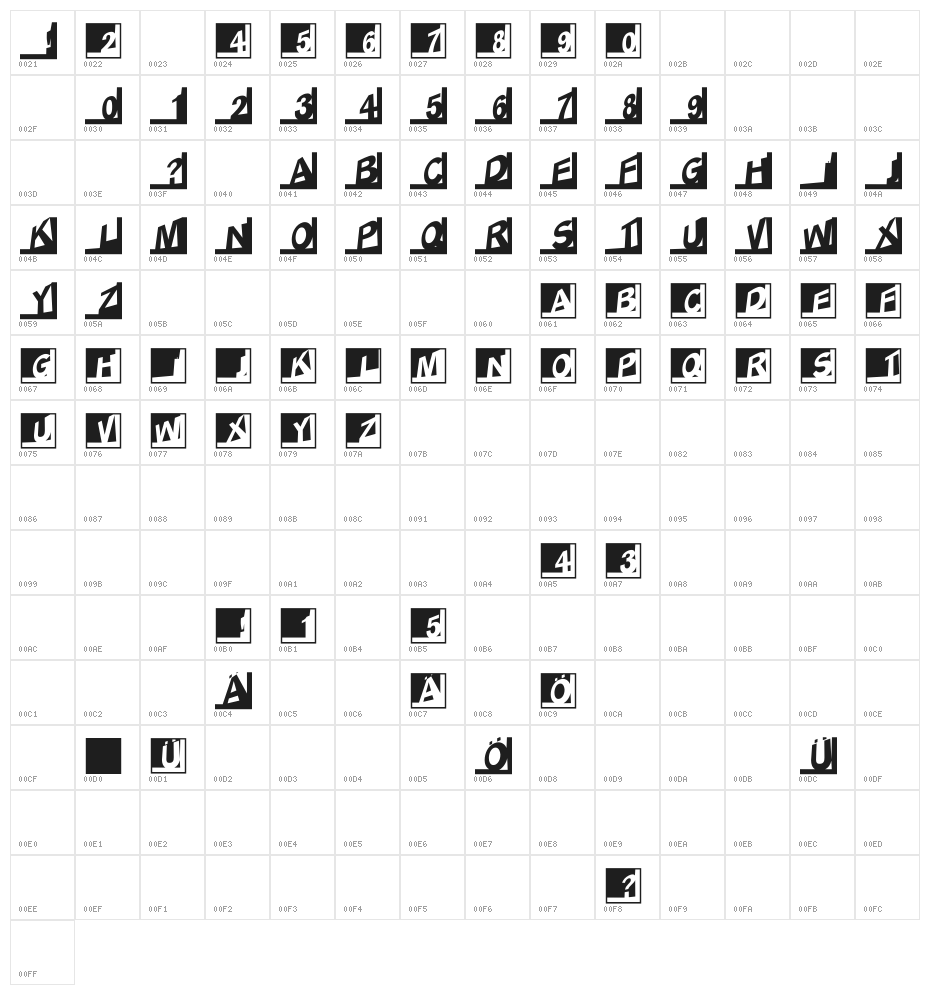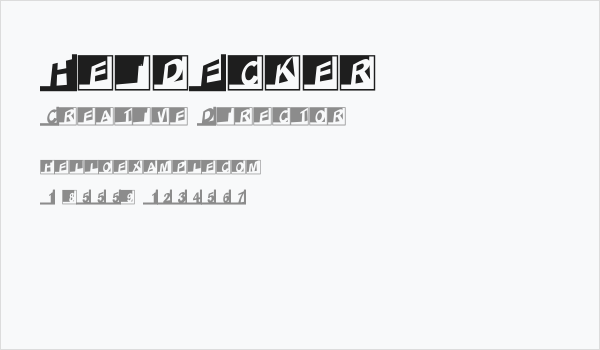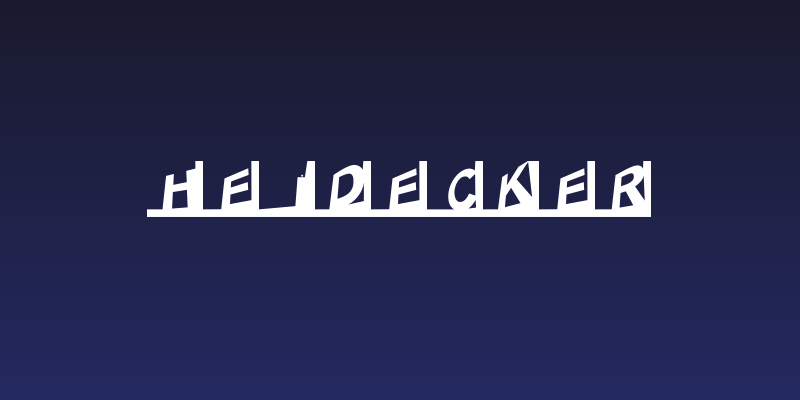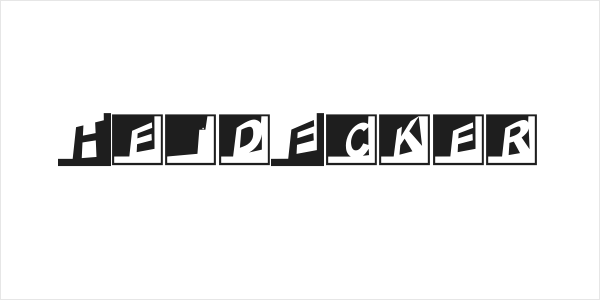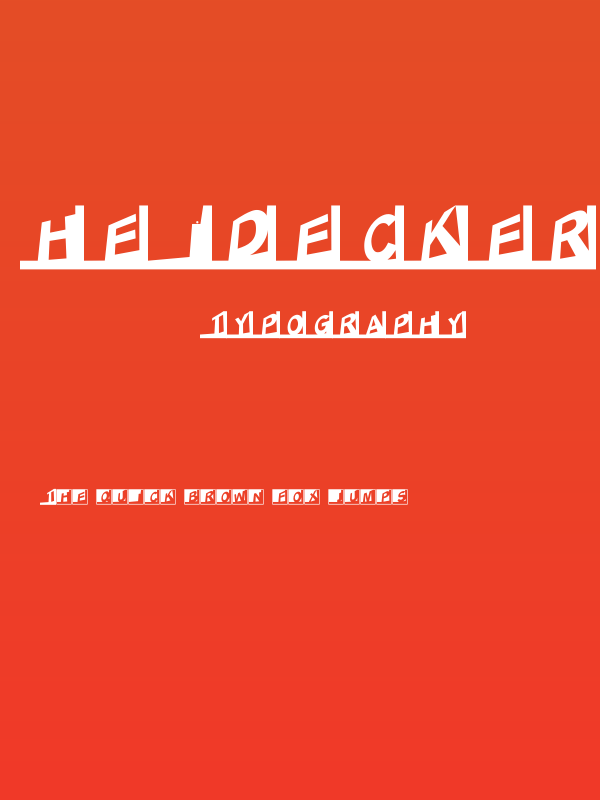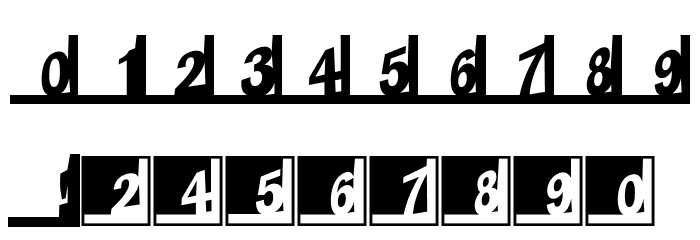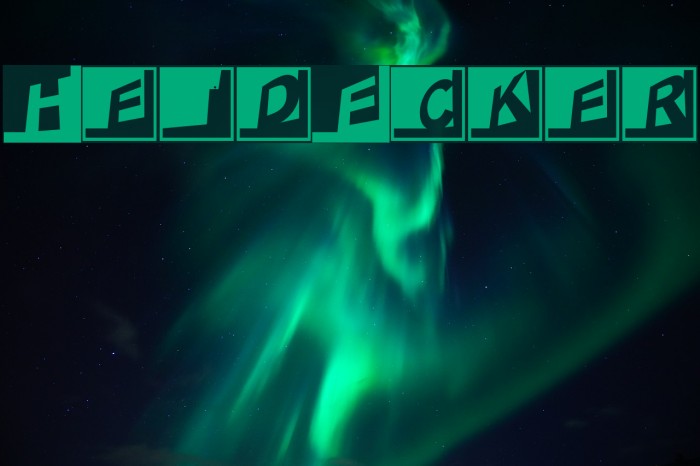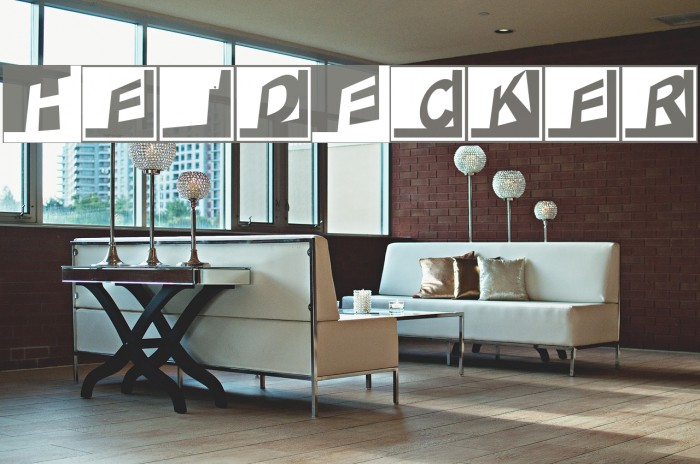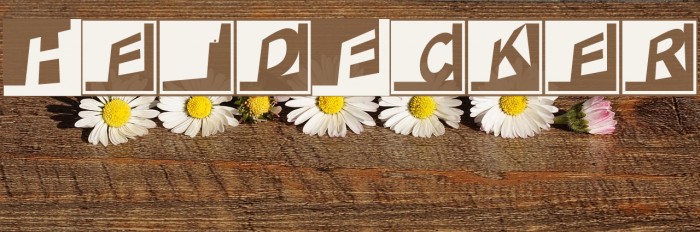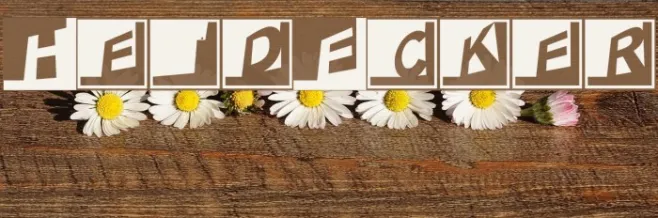
HeidEcker Font
HeidEcker Description
This font features a bold and dynamic style with a strong presence. Each character is enclosed within a black square, creating a striking contrast between the white letters and the dark background. The letters are slightly slanted, adding a sense of movement and energy. The uppercase and lowercase letters maintain a consistent style, with sharp angles and clean lines. The numbers follow the same design principles, ensuring uniformity across all characters. The special characters are also included, adhering to the same bold and impactful design. This font is ideal for projects that require a strong visual impact and a modern, edgy feel.
| Proposed Projects | Ideal for posters, logos, branding materials, and any design that requires a bold statement. |